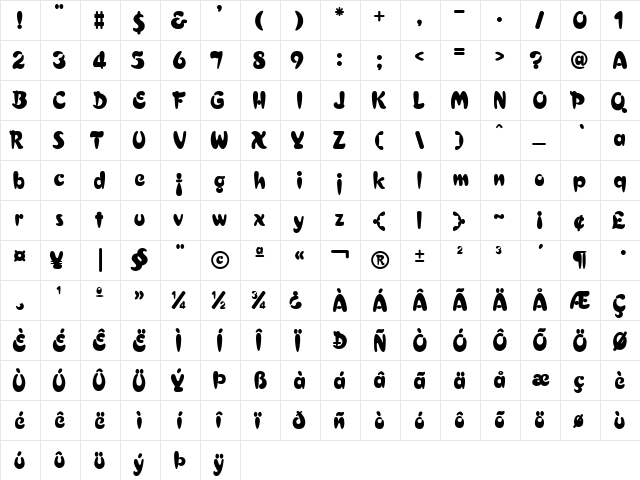
Croissant Regular Font Preview
Croissant Regular
Design Context for Croissant Typeface
Croissant is a composed and adaptable typeface that performs quietly and consistently across a wide range of design contexts.